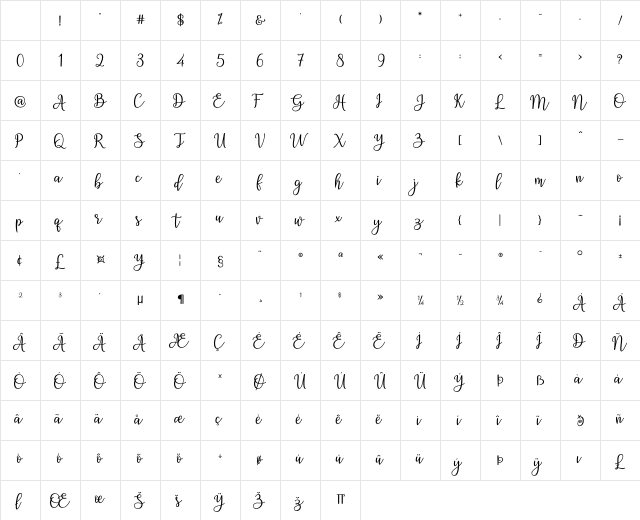
Complete Ashadiya Regular glyph index. Displaying only characters natively supported by Ashadiya Regular font.
Ashadiya is a composed and adaptable typeface that performs quietly and consistently across a wide range of design contexts.